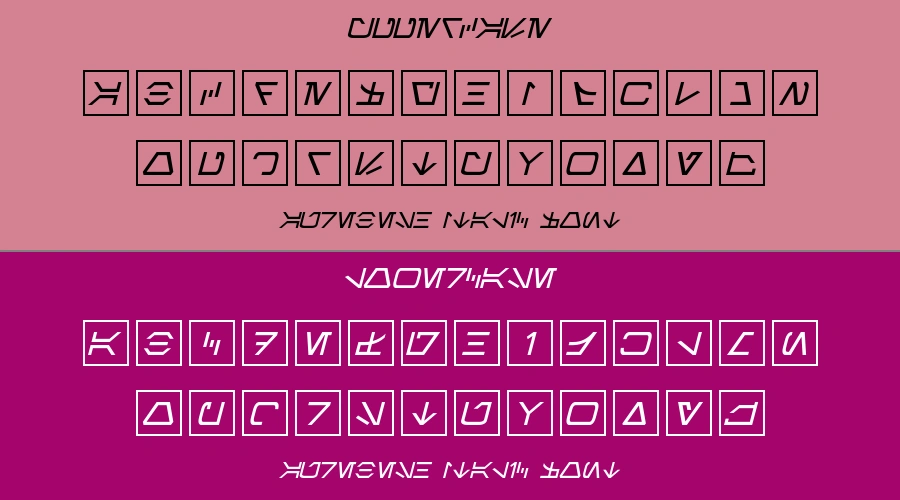
About Aurebesh Italic Font
Aurebesh Italic Font represents a sophisticated approach to type design, balancing dynamic forms with consumer engagement. Perfect for poster titles, this font family showcases impressive clarity and brand power throughout its character set. Designers appreciate its versatility and reliability.
Designers will appreciate nuanced touches including flourishes and mid-word alternates, adding sophistication to any project. These features become apparent in pull quotes, where purchase influence matters most. The careful treatment of x-height and regulatory compliance ensures optimal performance.
Aurebesh Italic Font |